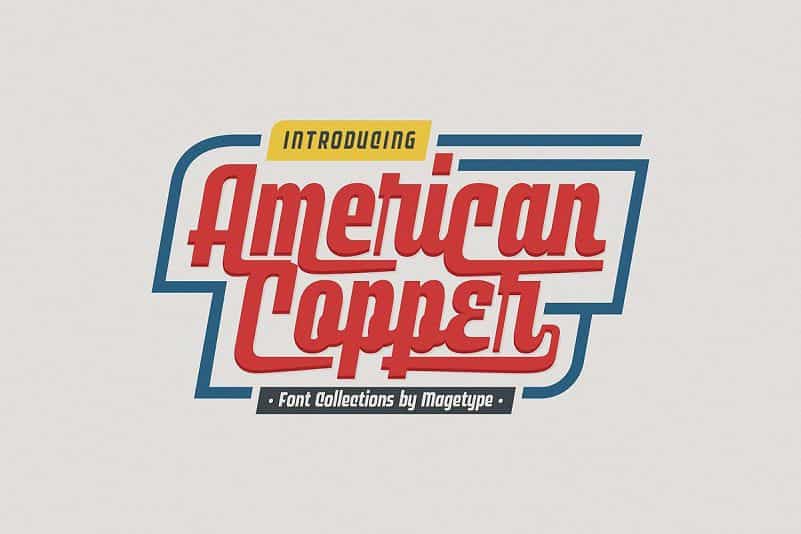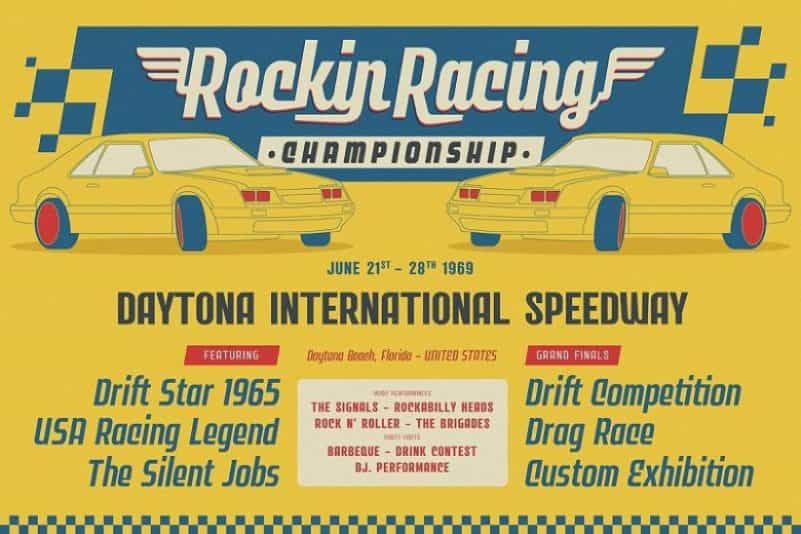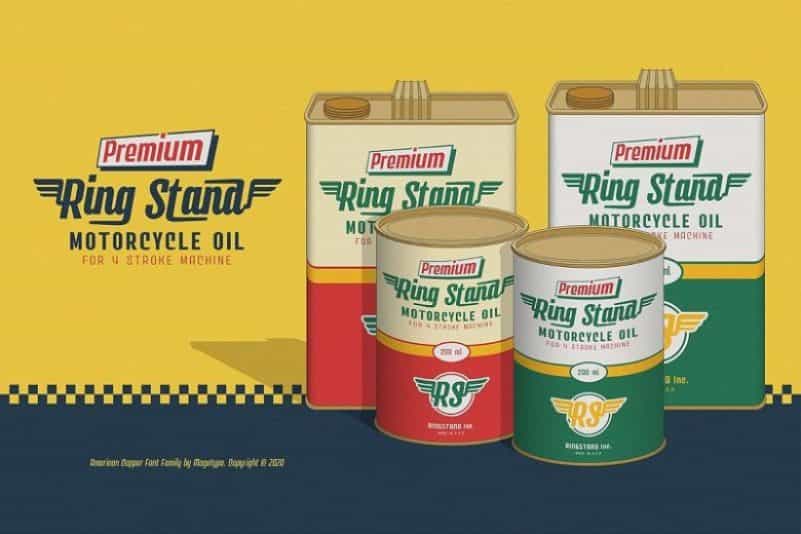
American Copper is a retro font family that was created with the help of an old American motorcycle logo. The logo is very masculine and powerful just like the motorbike. Among the copper scripts, American Copper Script is the most popular one that makes a font out of the logo. Unlike the Sans and Block family, which is a complement to the Script. However, these three are a very good unit to be compared together.